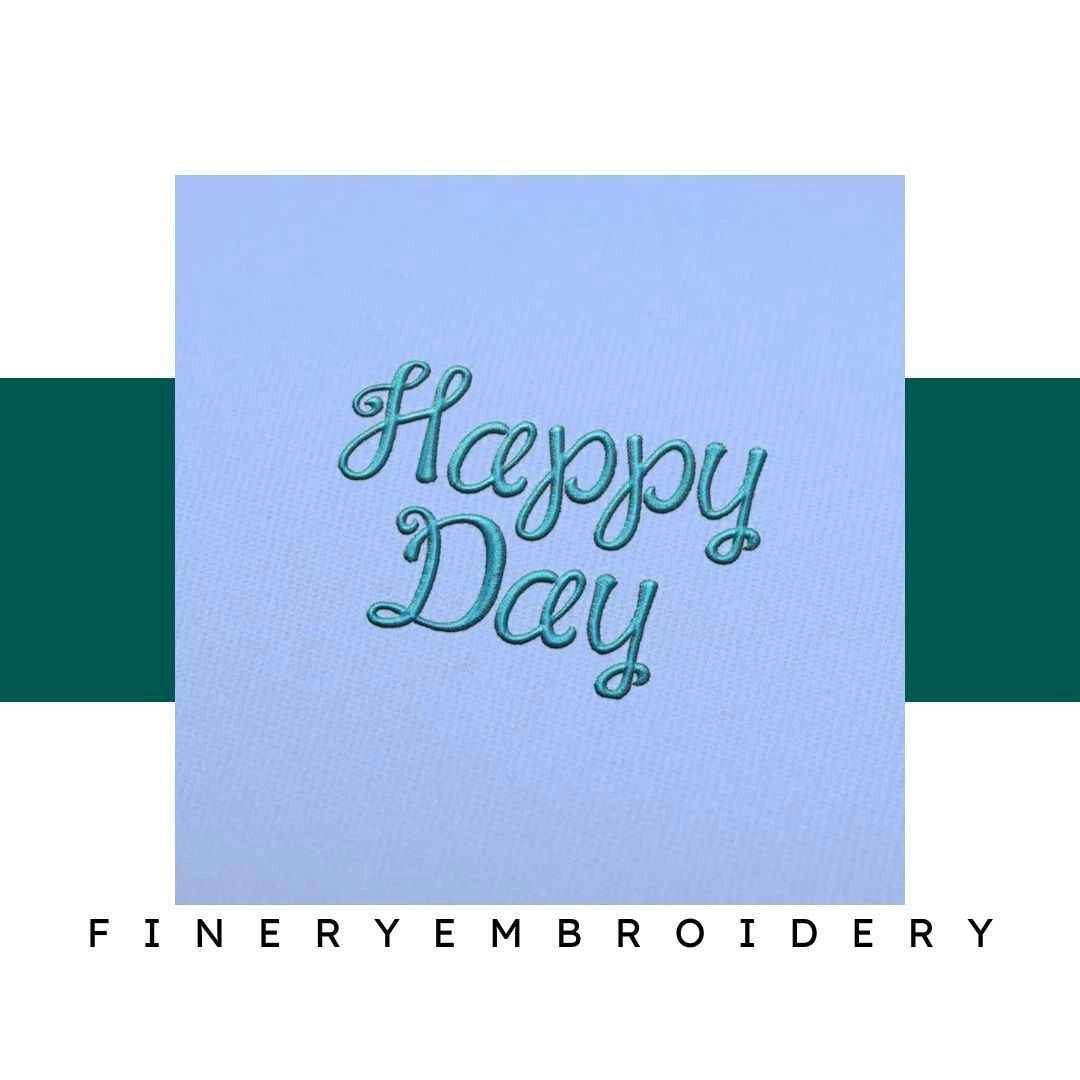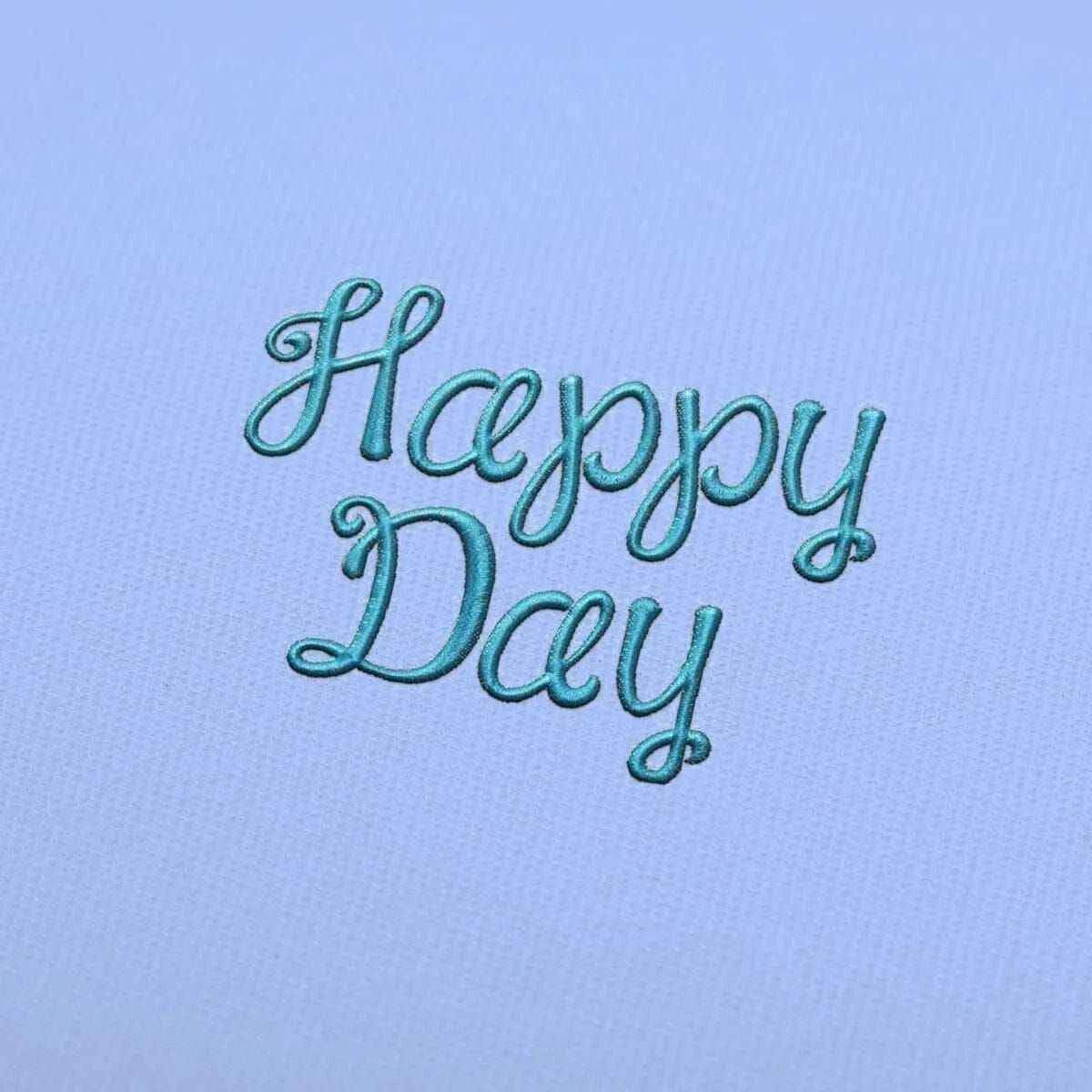
Happy Day Embroidery alphabet Font Set
Transform your creative vision into a stunning reality with the Happy Day Embroidery Alphabet Font Set – where elegance meets versatility!
Introducing the Happy Day Embroidery Alphabet Font Set, an exquisite collection designed for those who cherish the art of embroidery. This set is not just a tool; it’s a gateway to endless creativity, allowing you to personalize your projects with charm and sophistication.
Why You'll Love This Design
Each character in the Happy Day Alphabet Font Set boasts a unique elegance that will elevate your embroidery projects. Crafted with precision, this font set is perfect for adding a personal touch to any item, whether it's a cozy throw pillow or a chic blouse. Experience the joy of transforming ordinary fabric into extraordinary pieces!
Creative Applications
The possibilities are limitless with this versatile font set. Use it to personalize gifts, create custom apparel, or embellish home décor items. This collection is ideal for both small-scale crafts and larger projects, helping you express your individuality and creativity in every piece you create. Bring your ideas to life with ease and flair!
Digitized for Passionate Embroiderers